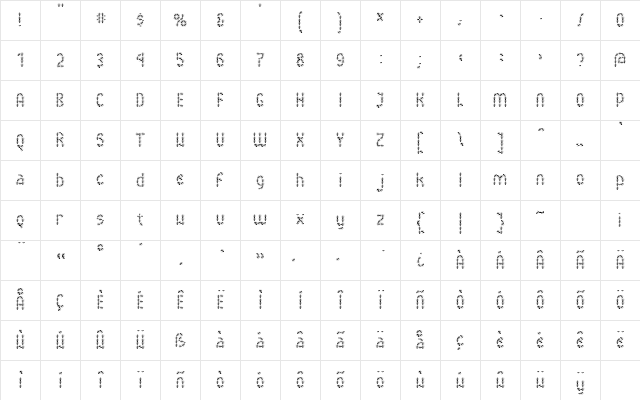
AntsyPantsy Regular Free Font
AntsyPantsy Regular
Design Context for AntsyPantsy
AntsyPantsy is a composed and adaptable typeface that performs quietly and consistently across a wide range of design contexts.